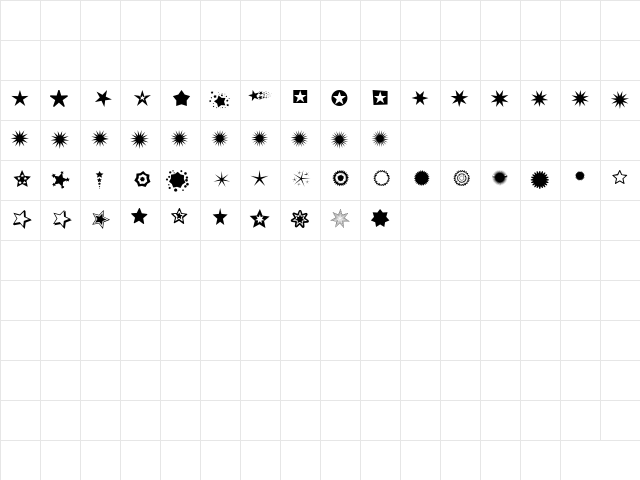
PizzaDude Stars Regular Font Preview
PizzaDude Stars Regular
Design Context for PizzaDude Stars Typeface
PizzaDude Stars is a composed and adaptable typeface that performs quietly and consistently across a wide range of design contexts.
Pro Tip: Use PizzaDude Stars in both headline and body roles to test its range before committing to a single application.